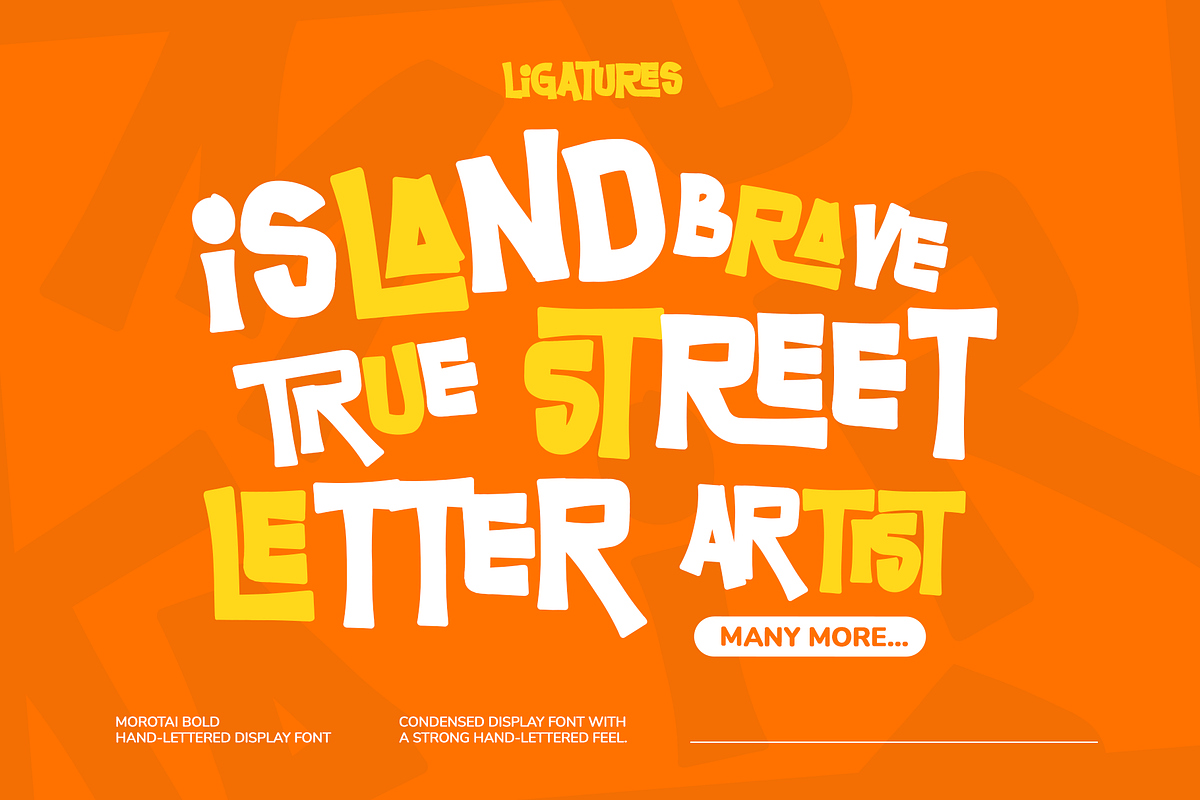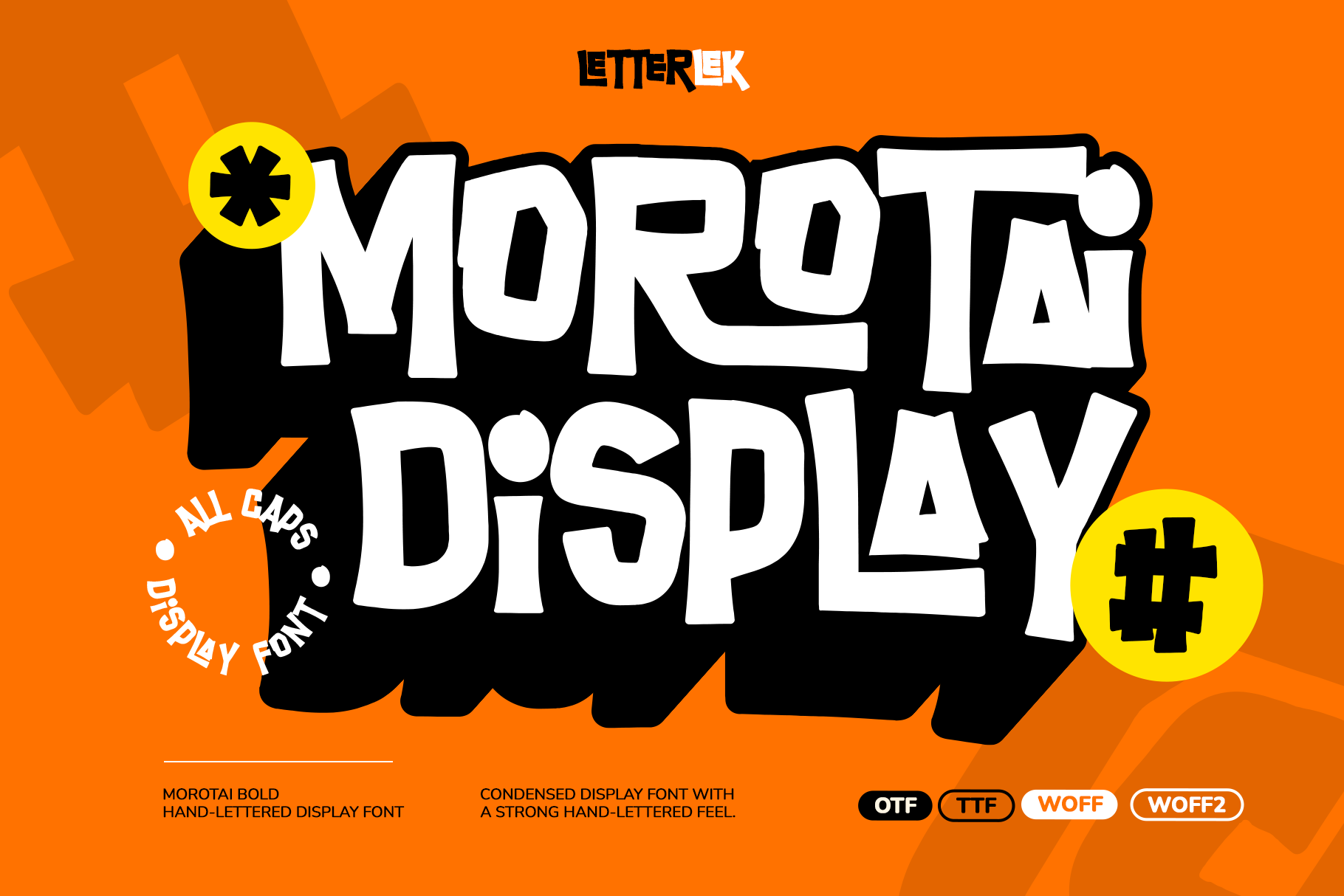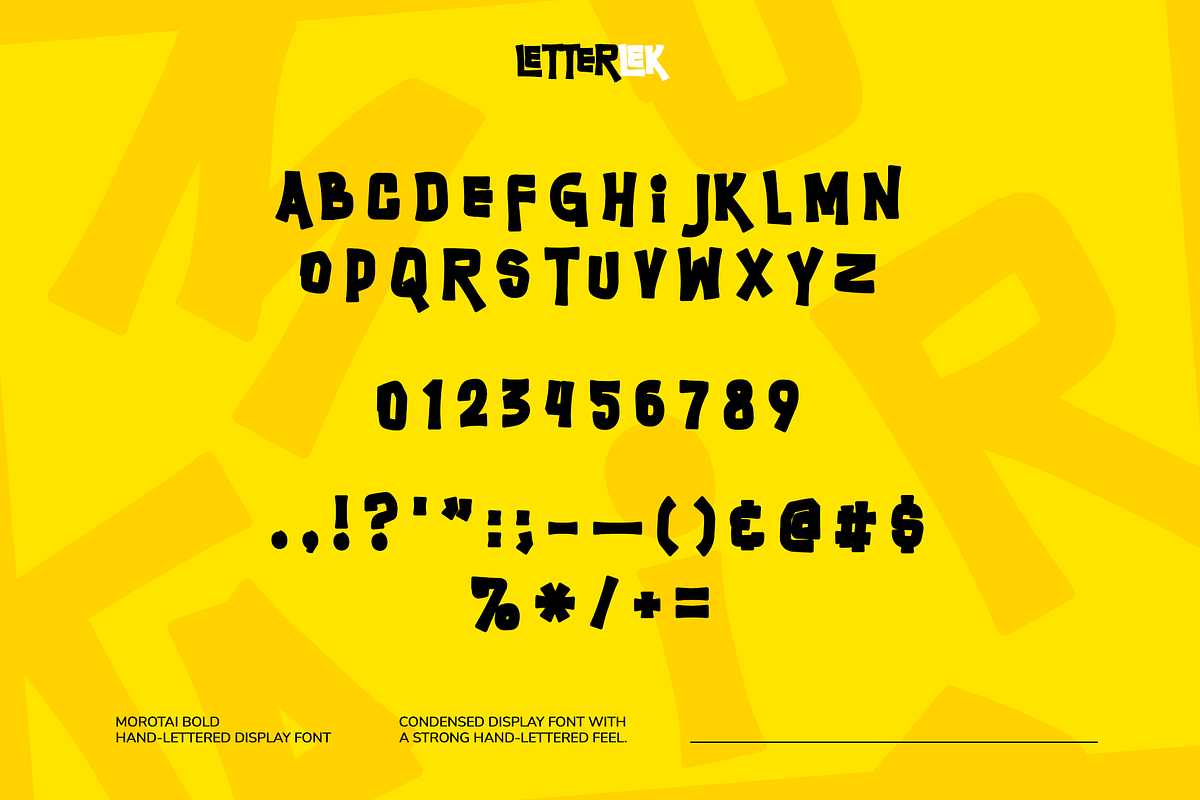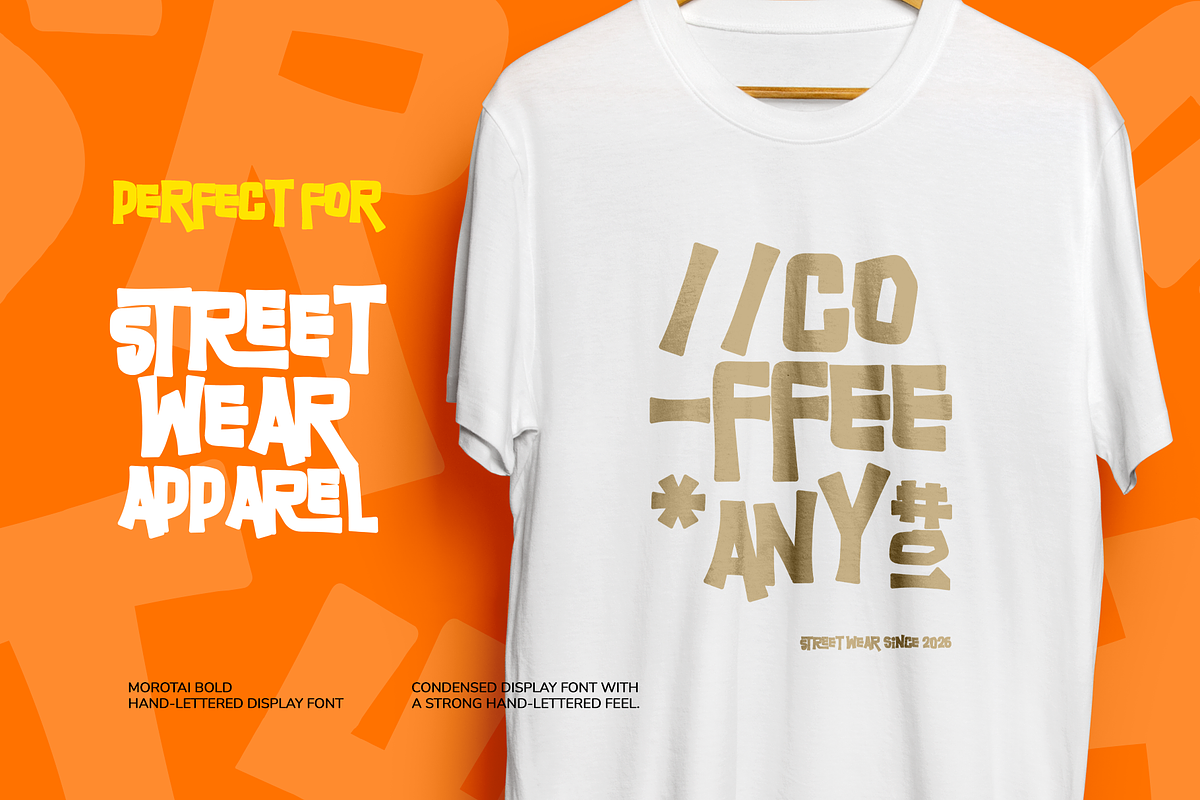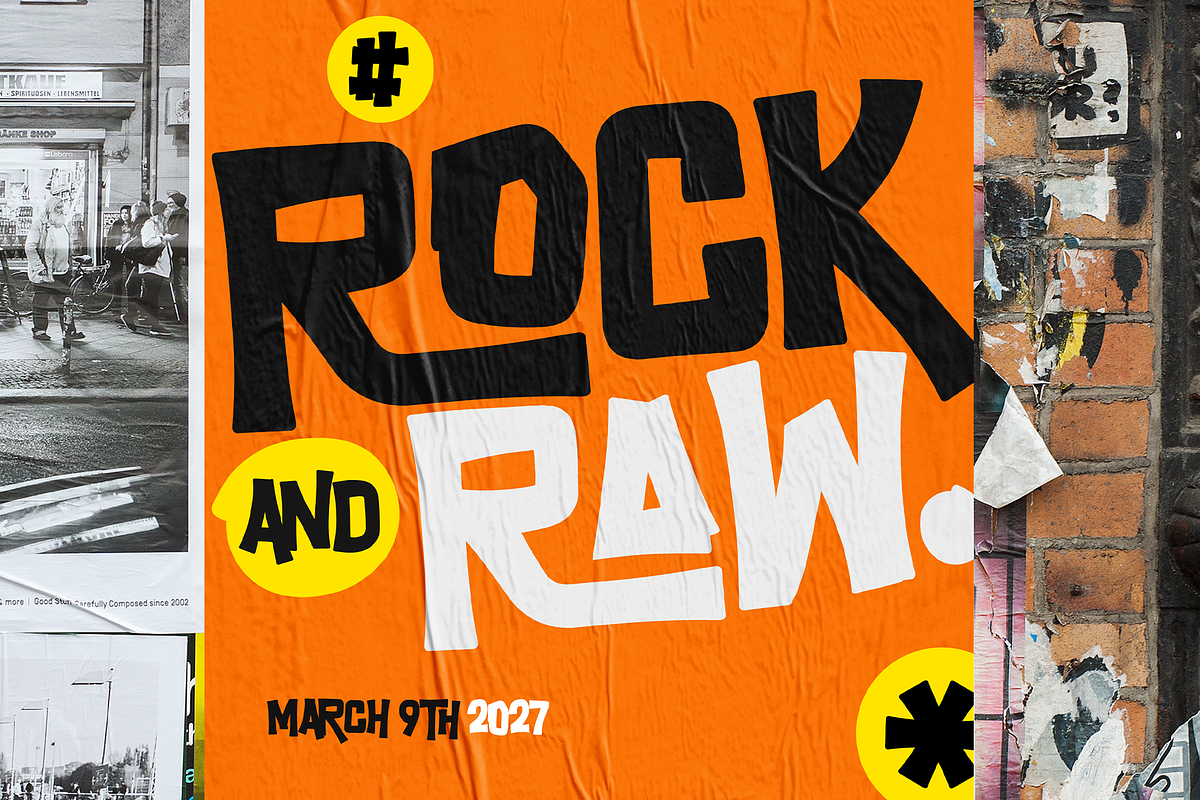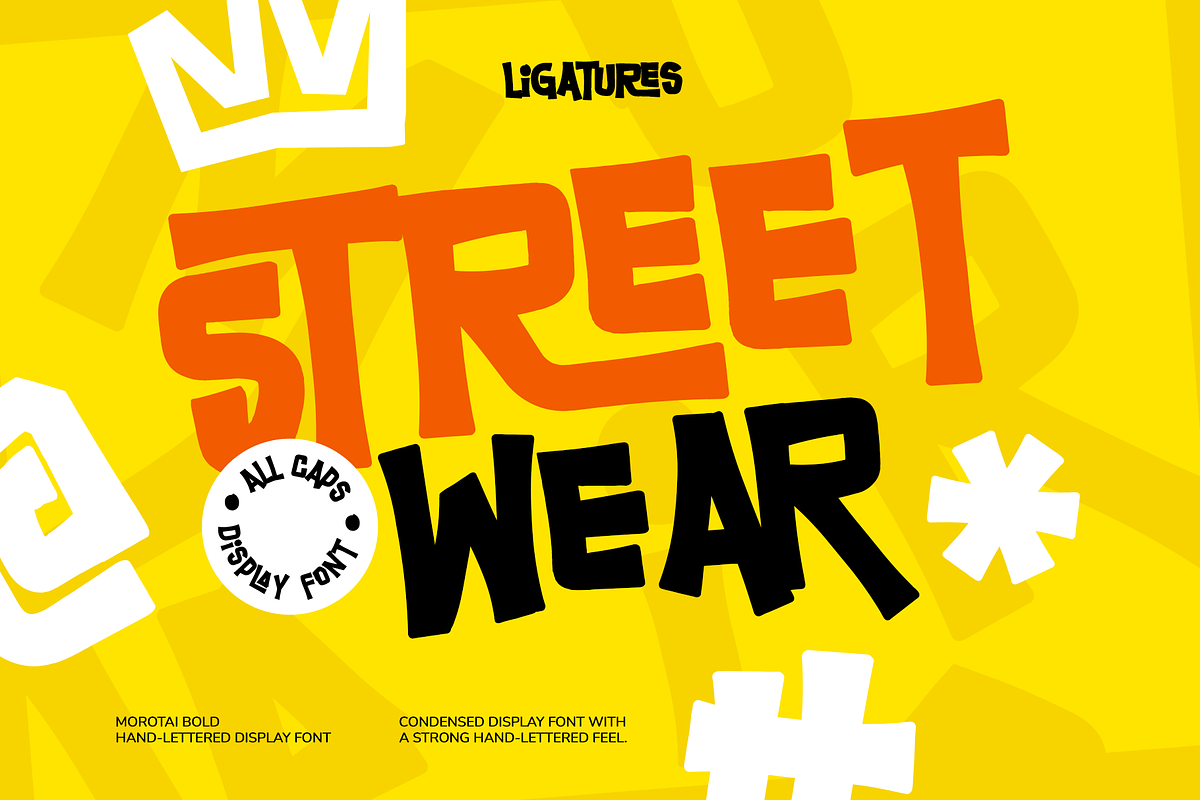
Morotai Hand-Lettered Display Font
Morotai is a bold All caps, condensed display font with a strong hand-lettered feel. It
carries 15 contextual ligatures — by far the most in this collection — which means
letter combinations connect and vary in a much more natural, hand-drawn way than a
typical typeface, giving your headlines real personality without extra manual
kerning.
- Streetwear and apparel branding
- Gym, fitness and motivational posters
- Bold logos and wordmarks
- Music and event posters
- Packaging that needs a strong, confident headline
- 15 contextual ligatures for natural, varied letter connections